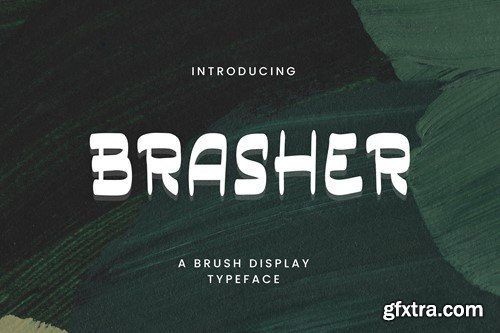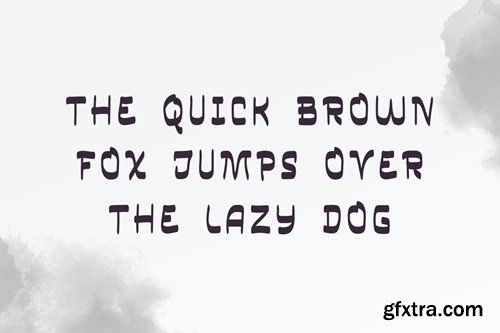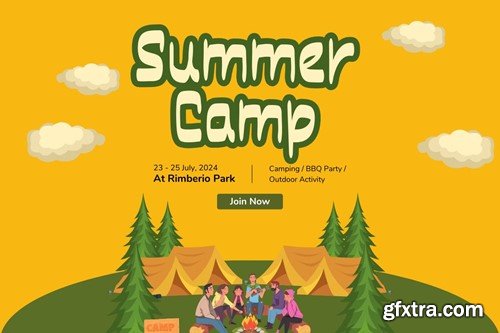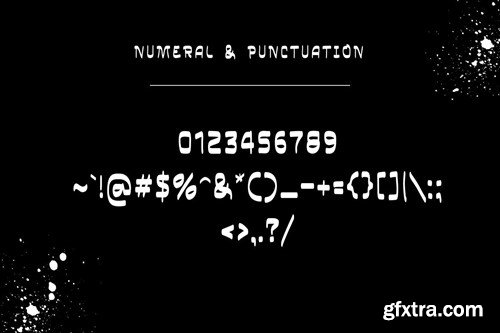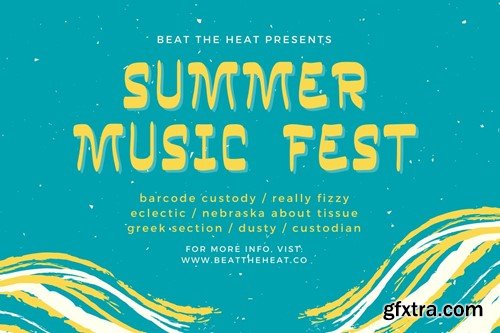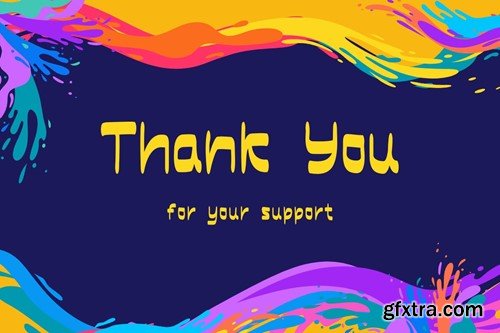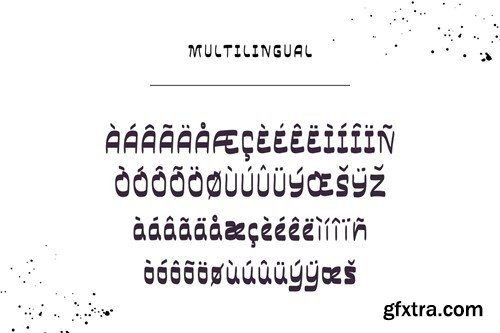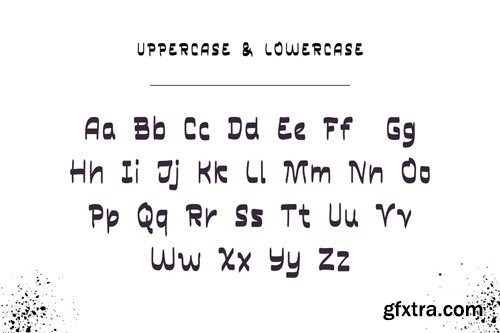
Basher - 一款书法显示字体 GS8MVTW
Basher - A Brush Display Typeface Dive into the expressive world of typography with Basher, a Brush Display Typeface that seamlessly blends bold strokes with a playful spirit. Every character is a testament to the raw energy of hand-brushed design, giving your words a distinct personality that captivates and commands attention. Basher is not just a font; it's a visual experience, an artful fusion of rugged edges and vibrant flair. Basher Typeface is crafted for those who seek more than words – it's a statement, a visual journey that breathes life into your designs. Whether you're working on posters, headlines, or any project that demands a bold and charismatic font, Basher stands ready to deliver. Let your creativity run wild as you explore the versatility of this typeface, where each character is a brushstroke, and every word is a masterpiece. What’s Included : Thank you